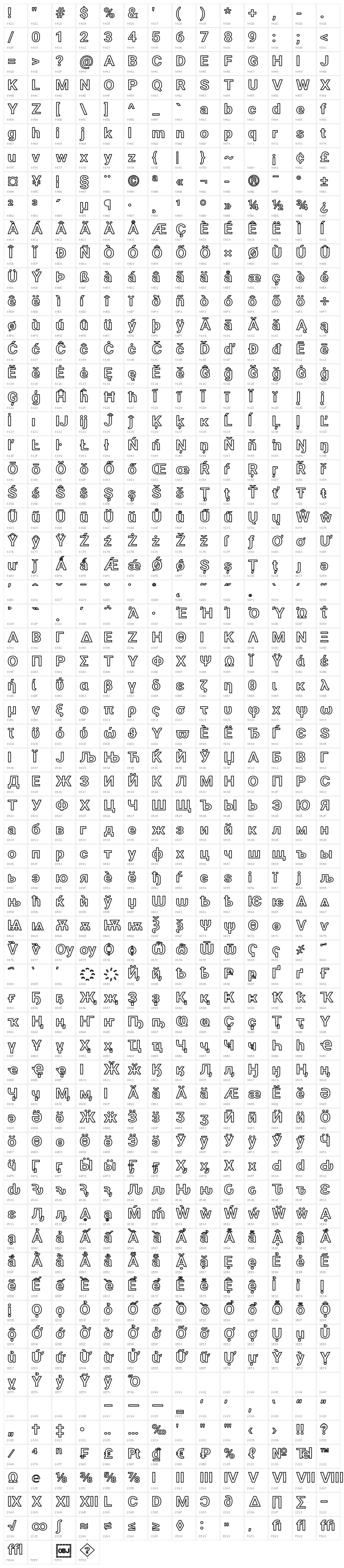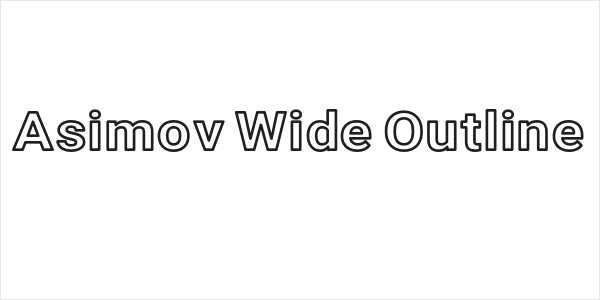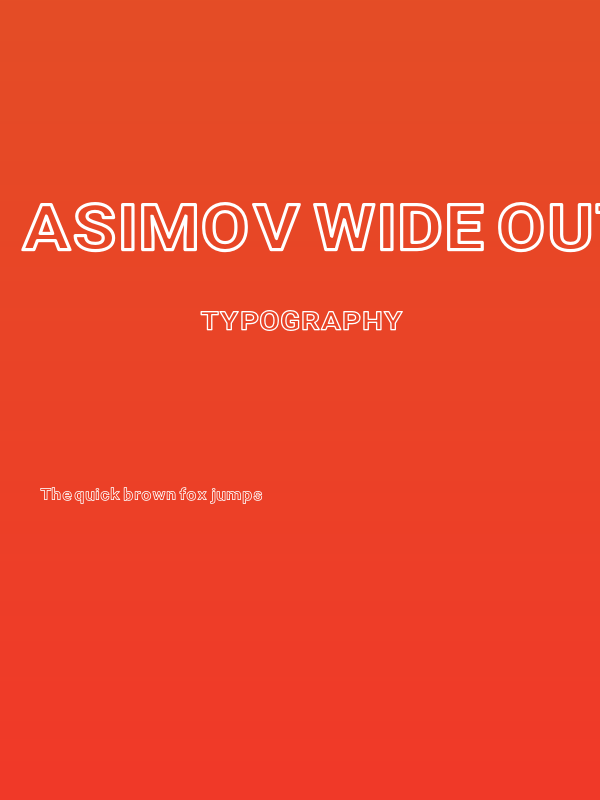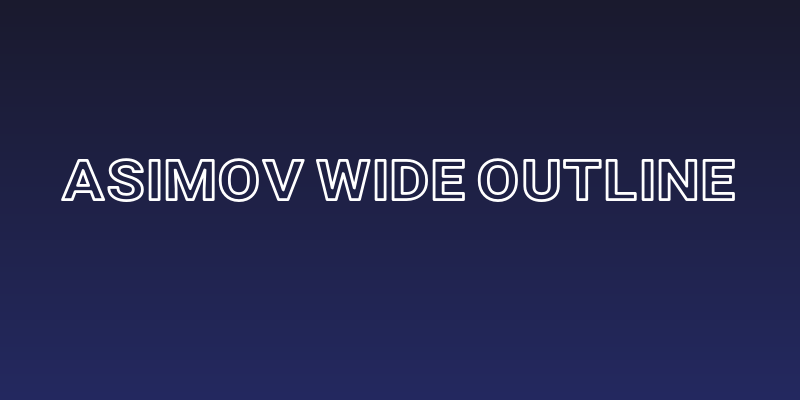
Asimov Wide Outline Font
Asimov Wide Outline Description
This font features a bold, wide outline style that gives it a strong and impactful presence. The characters are uppercase and lowercase letters, numbers, and a variety of special symbols. Each character is defined by a thick, uniform outline that creates a hollow effect, making it ideal for designs that require a modern and eye-catching look. The font's geometric shapes and clean lines contribute to its contemporary aesthetic, while the wide spacing between characters enhances readability. This style is particularly effective for headlines, posters, and branding materials where a bold statement is needed.
| Proposed Projects | Ideal for headlines, posters, branding, and any design requiring a strong visual impact. |